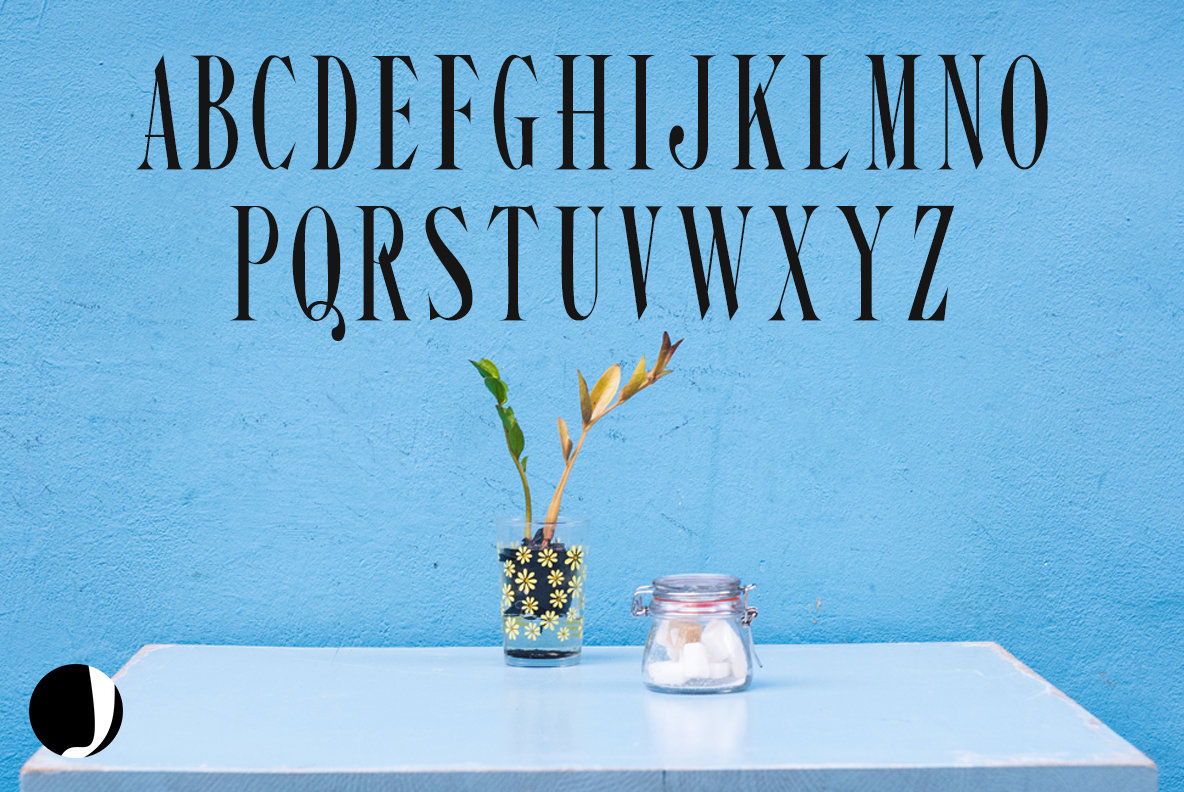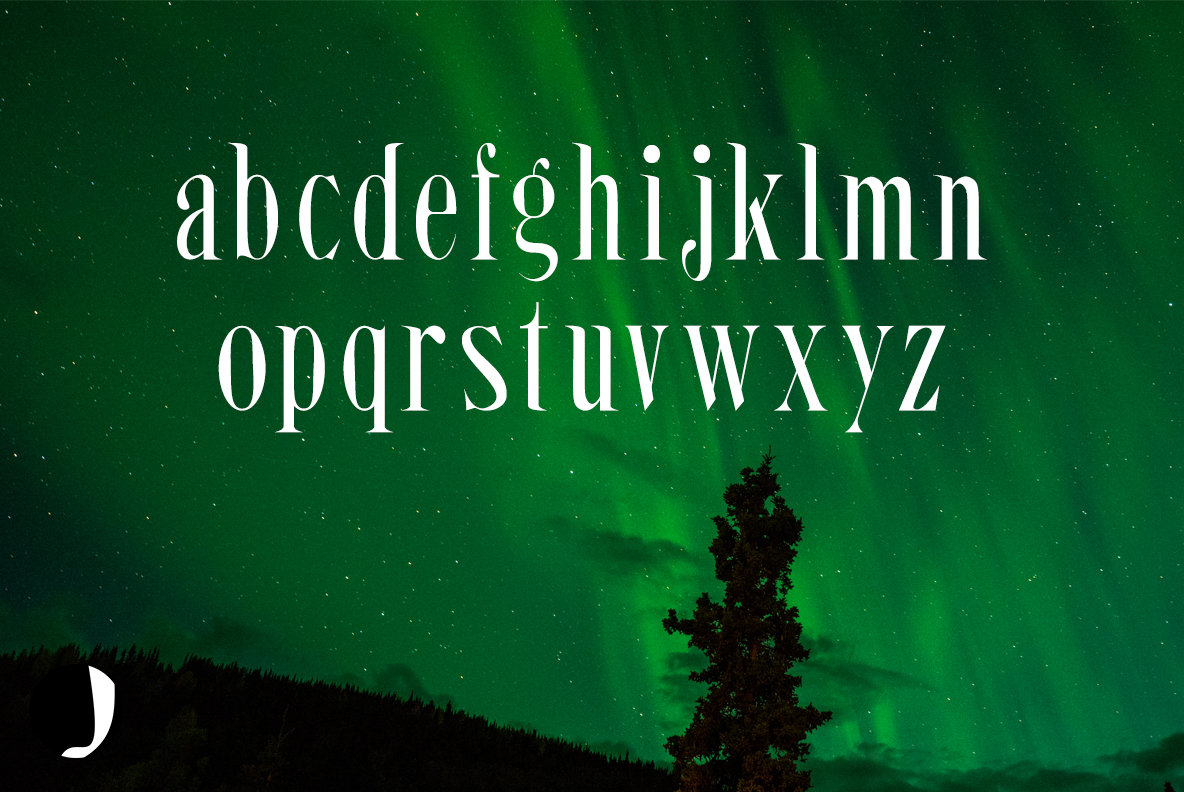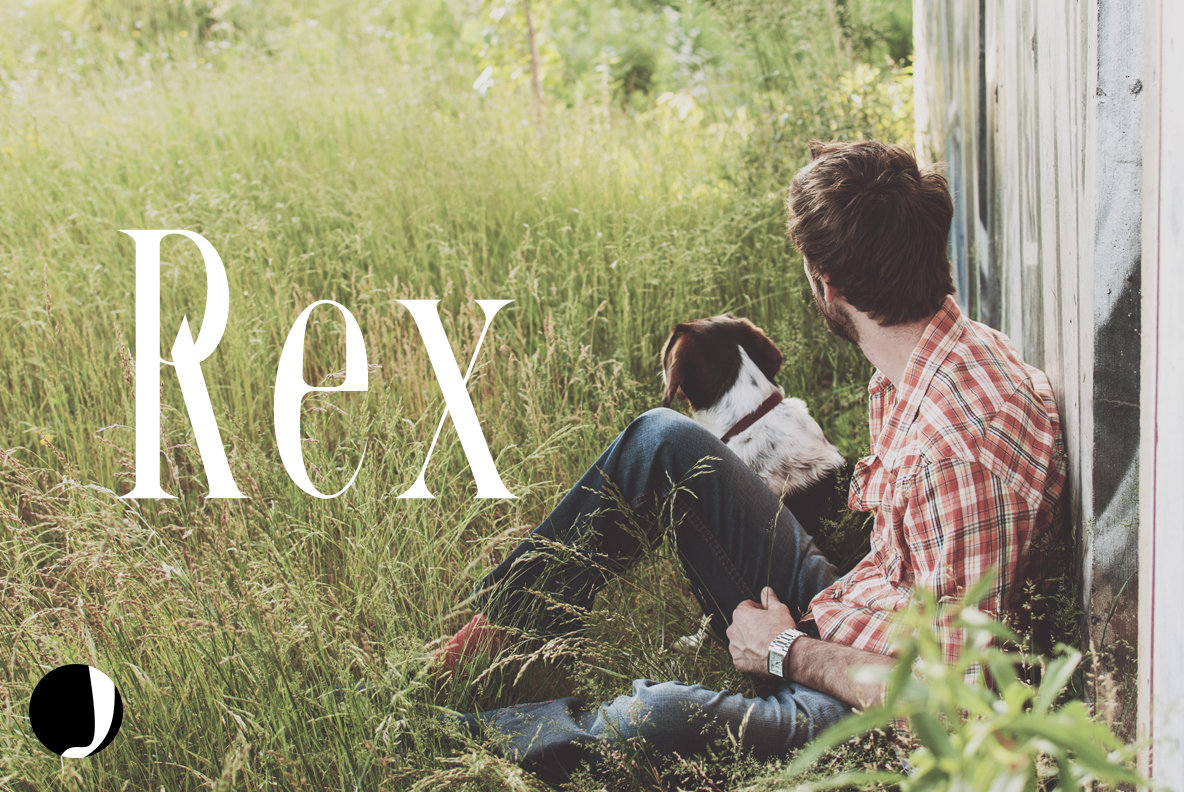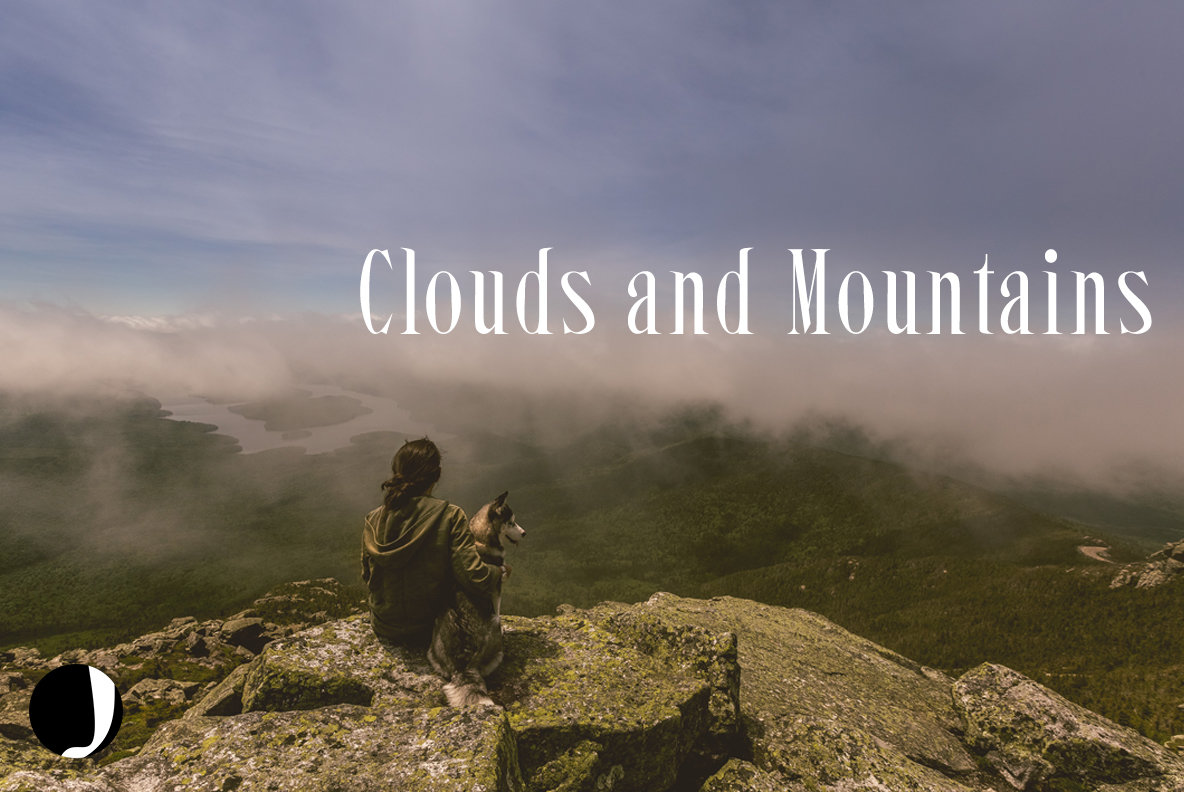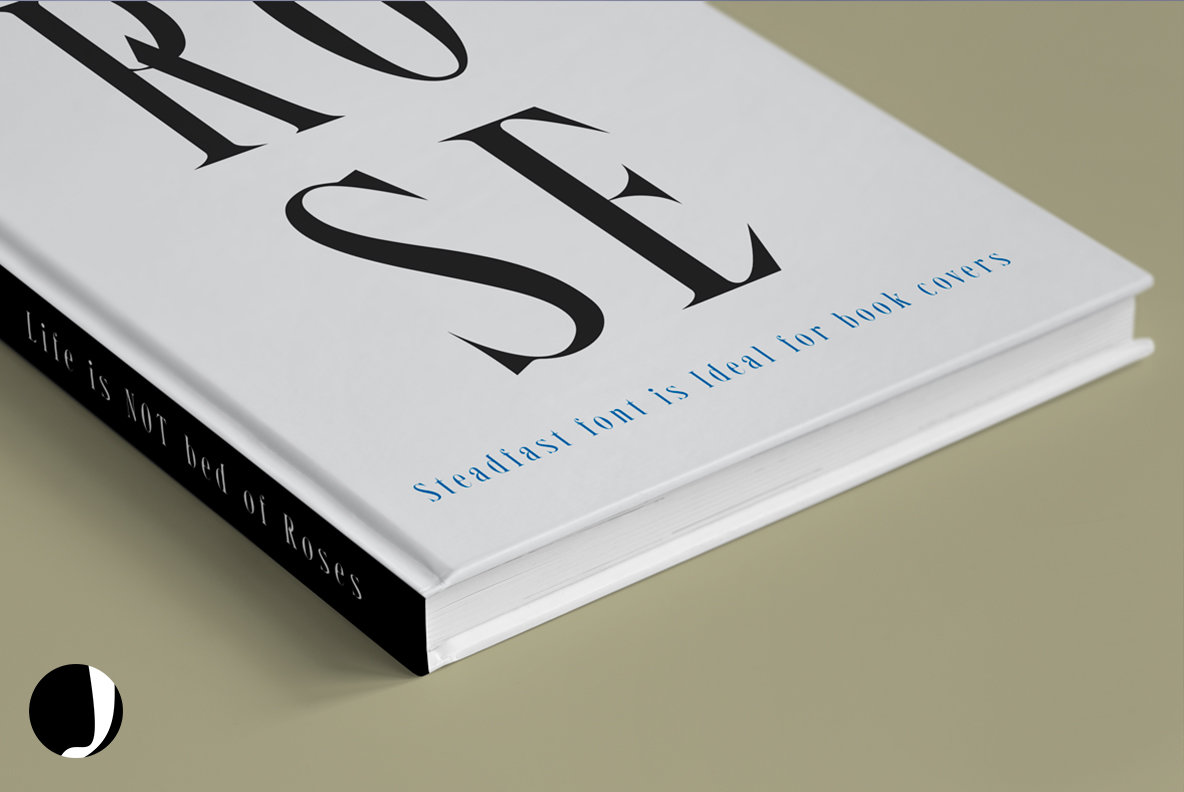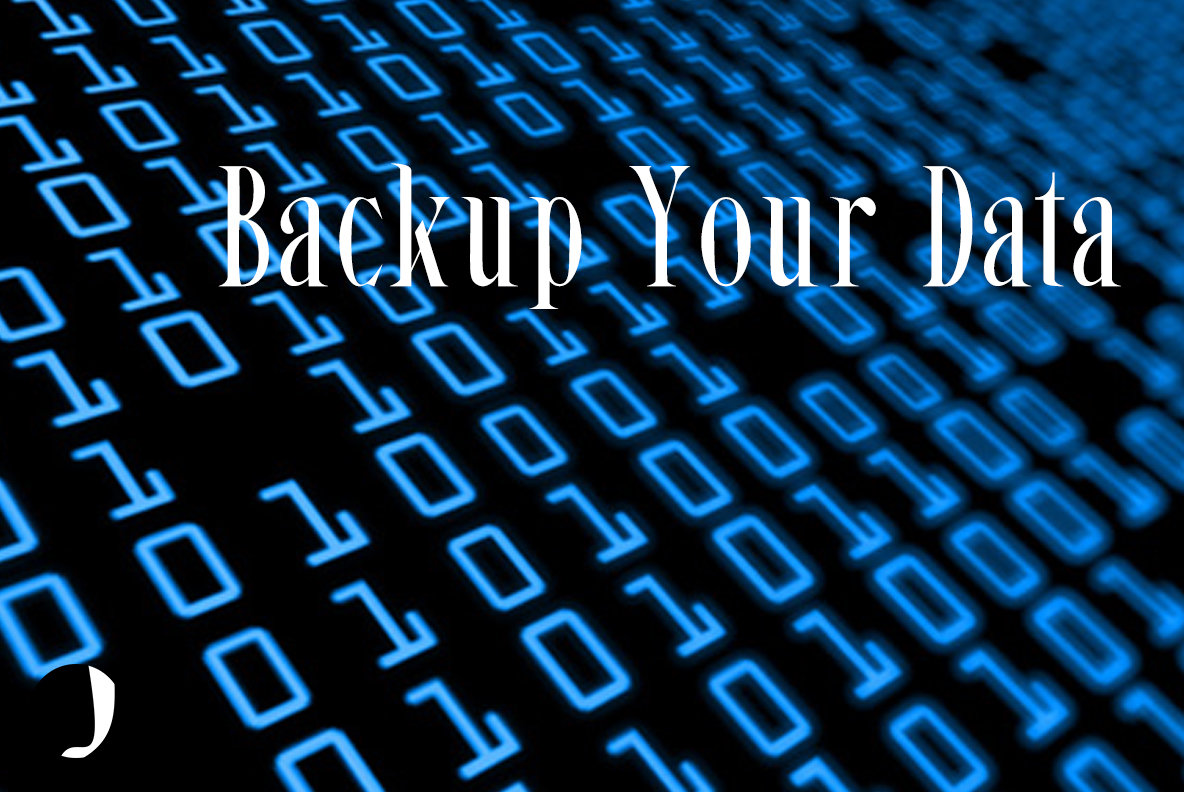
Steadfast
Here is another typeface, "Steadfast", after spending many hours on correcting the contours of this typeface, finally it is out for public release!!. It is a blend of old condensed style with modern typography.